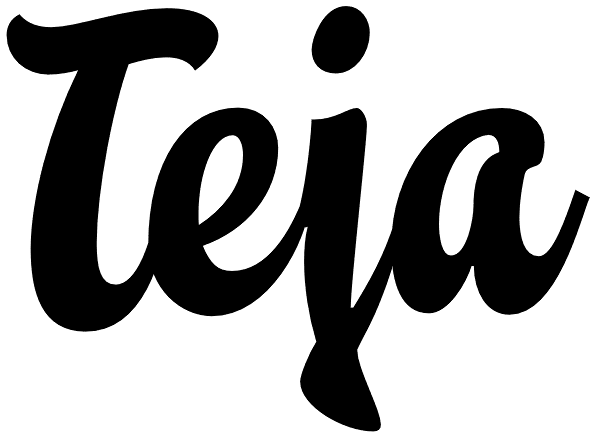
Teja
“Teja” font was inspired in the lettering styles printed on enamel advertising signs. The enameled iron signs were, from 1880s until the 1950s, amongst the most striking features of streets and railway stations in most towns and villages around the...